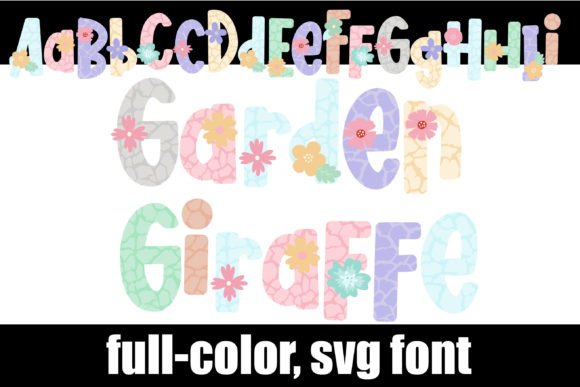
Once upon a time, in a world where words danced and colors sparkled, there lived a font that entranced all who beheld it: Garden Giraffe. Born from the imagination of Illustration Ink, this awe-inspiring creation is a symphony of vibrancy and charm, adorned with tiny flowers that bloom within each character, transforming every letter into a whimsical masterpiece.
Journey into a realm of enchantment, where spring's gentle touch awakens the senses and colors ignite the soul. Garden Giraffe is your gateway to a world of creativity and self-expression, beckoning you to paint your designs with a burst of chromatic brilliance. Embrace the magic of this enchanting font and watch as your words transform into exquisite works of art, leaving an enduring impression on all who encounter them.
With every stroke of the keyboard, Garden Giraffe weaves a tapestry of beauty, effortlessly capturing the essence of spring's renewal and the joy of new beginnings. This font is a gift, a treasure to be cherished by designers, artists, and anyone seeking to infuse their projects with a touch of magic and wonder. Its vibrant hues and intricate floral details dance across the screen, captivating the imagination and inviting you to embark on a creative adventure like no other.
Picture this: a radiant invitation adorned with Garden Giraffe's playful charm, beckoning guests to a springtime garden party. Its colorful characters intertwine with blooming flowers, promising a day filled with laughter, sunshine, and sweet treats. Or envision a captivating poster announcing a summer festival, its letters adorned with blooming daisies and sunflowers, inviting attendees to a world of music, art, and unforgettable experiences.
Immerse yourself in the boundless possibilities that await with Garden Giraffe. Its PUA encoding grants you effortless access to a treasure trove of glyphs and swashes, empowering you to unleash your creativity and craft designs that shimmer with individuality. This font is more than just a tool; it's a gateway to a realm of imagination, where your ideas take flight and your designs blossom into masterpieces.
Dare to embrace the enchanting allure of Garden Giraffe. Allow its colorful embrace to transform your creative endeavors into extraordinary works of art. Let your words bloom with beauty, let your designs dance with joy, and let your imagination soar to new heights. Garden Giraffe awaits you, ready to unlock the magic within your creative soul.